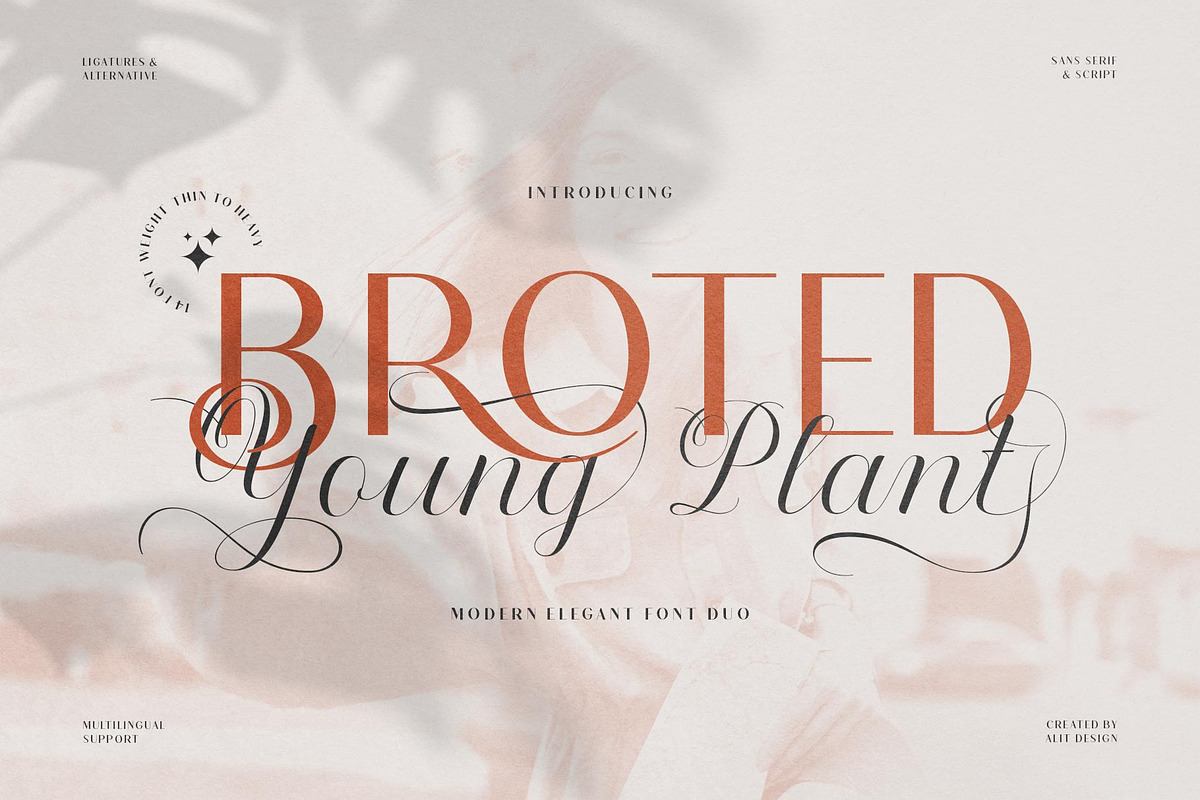
Please note, to use this font for commercial purposes, you must purchase the full version. Broted Young Plant is a charming font duo that combines playful, modern script with elegant, clean serif designs. Perfect for branding, logos, invitations, and creative projects, this font duo provides the perfect balance of sophistication and casual style. Whether you're designing for a natural product line, a modern brand, or a creative event, Broted Young Plant adds a fresh, stylish flair to your work. Test it out and enjoy free download access for personal use. Experience the versatile beauty of Broted Young Plant Font Duo Free Download before purchasing the commercial license. Add a unique and stylish touch to your designs with Broted Young Plant.